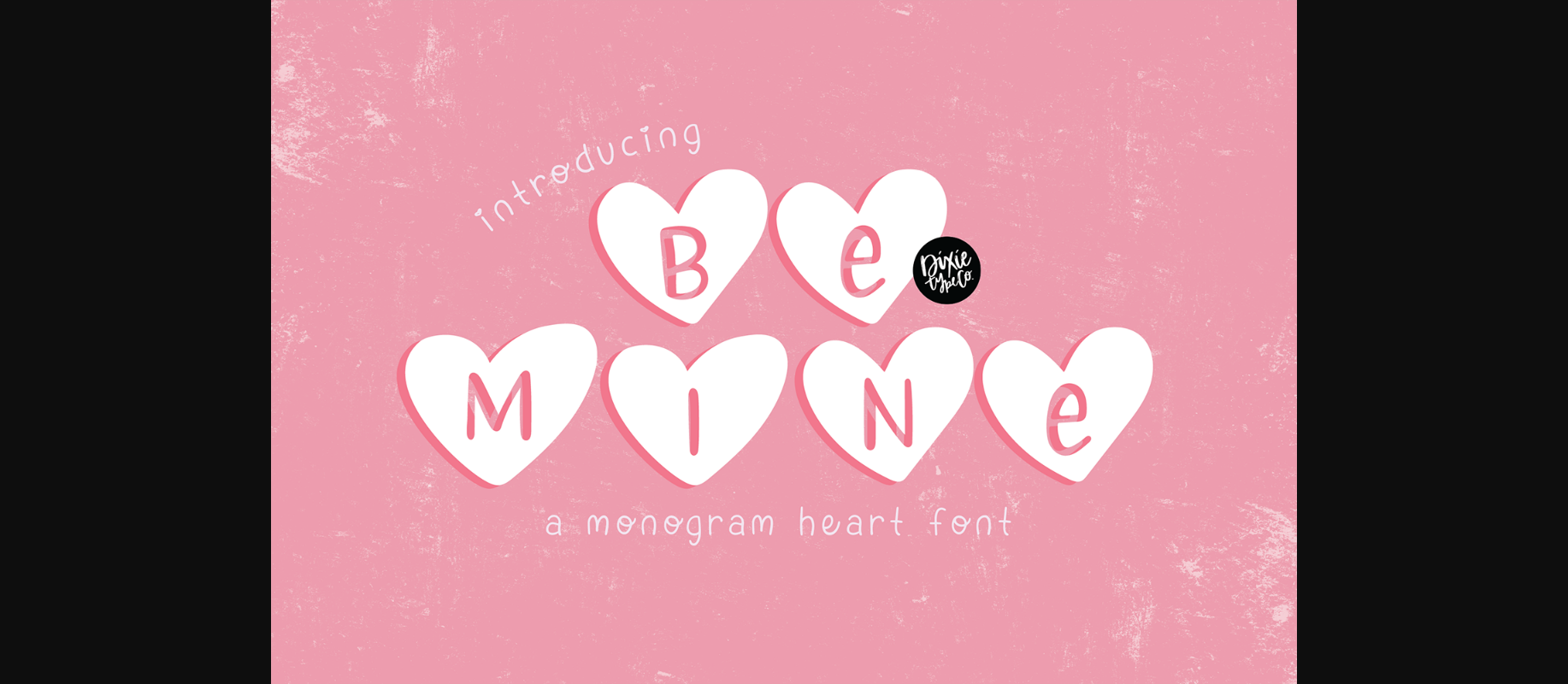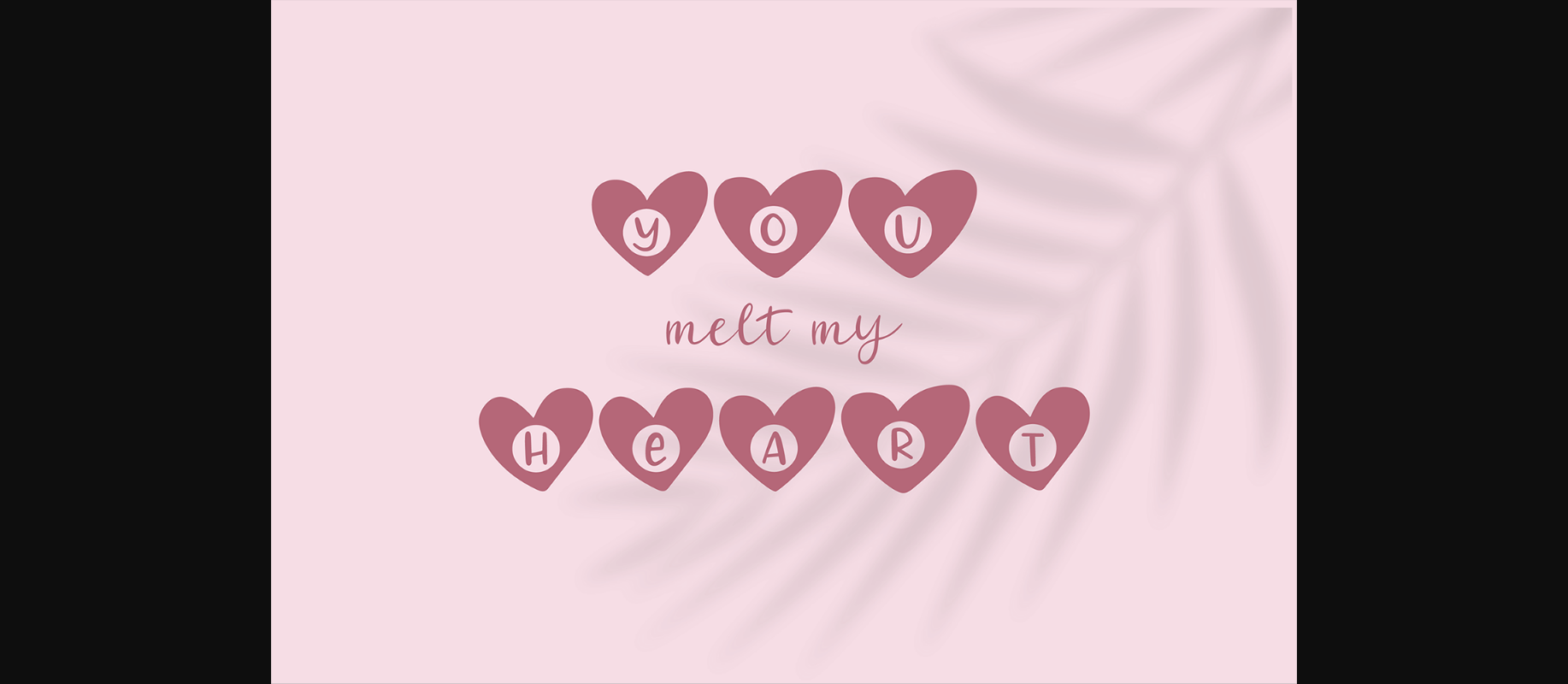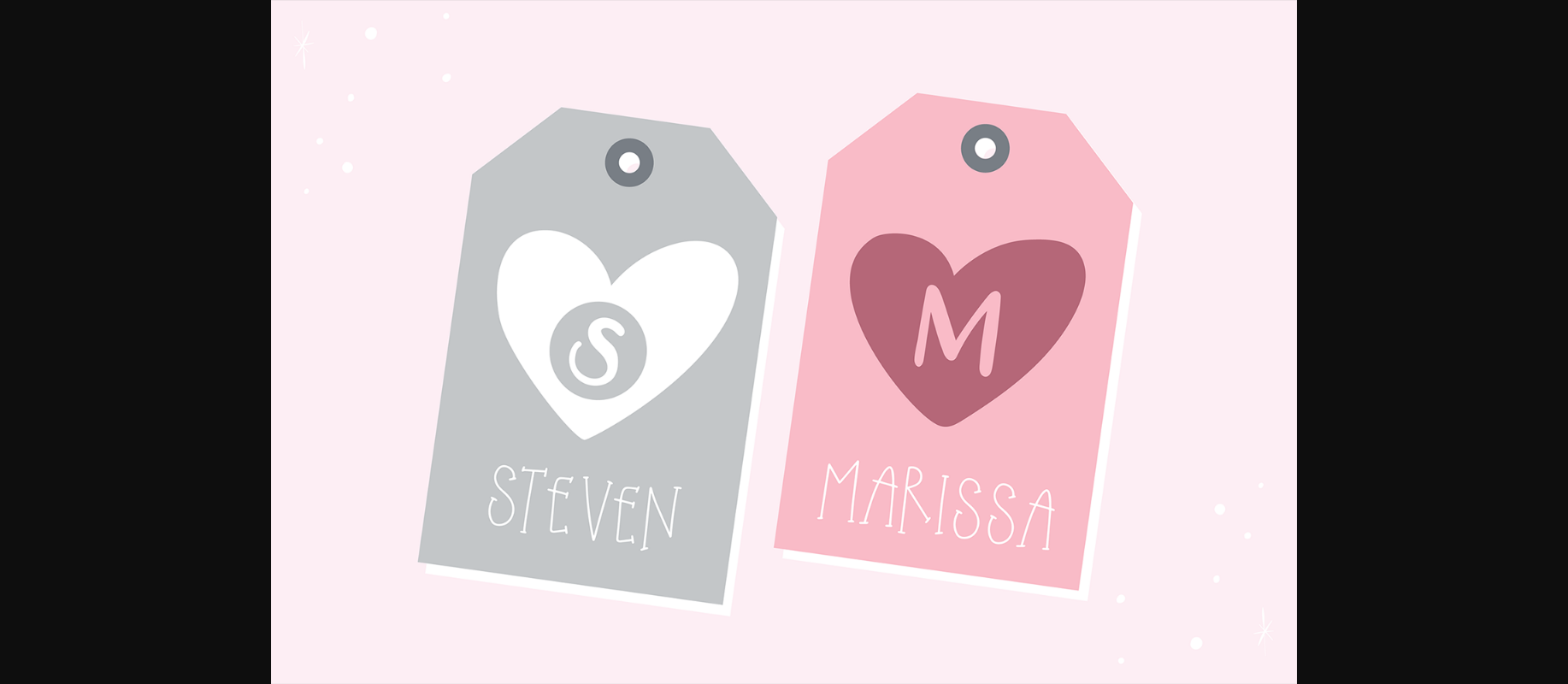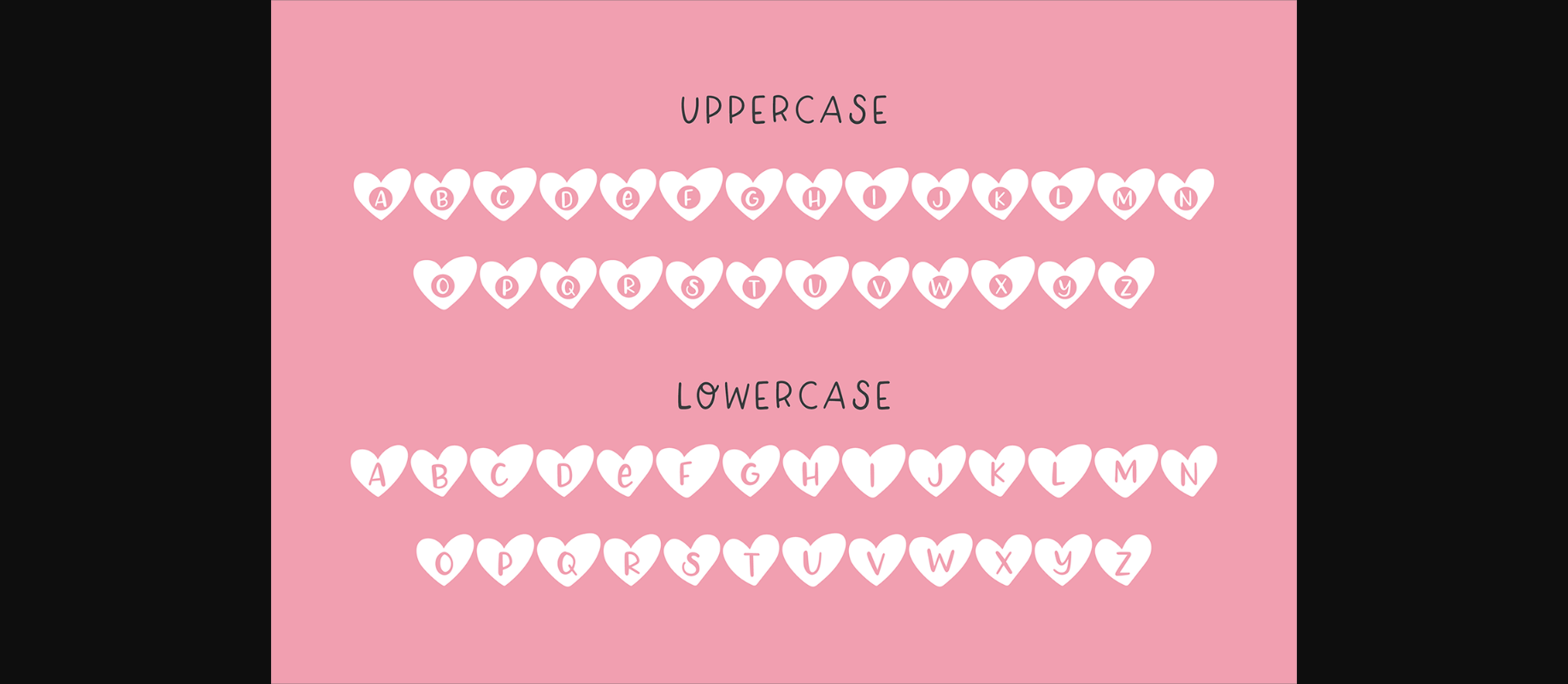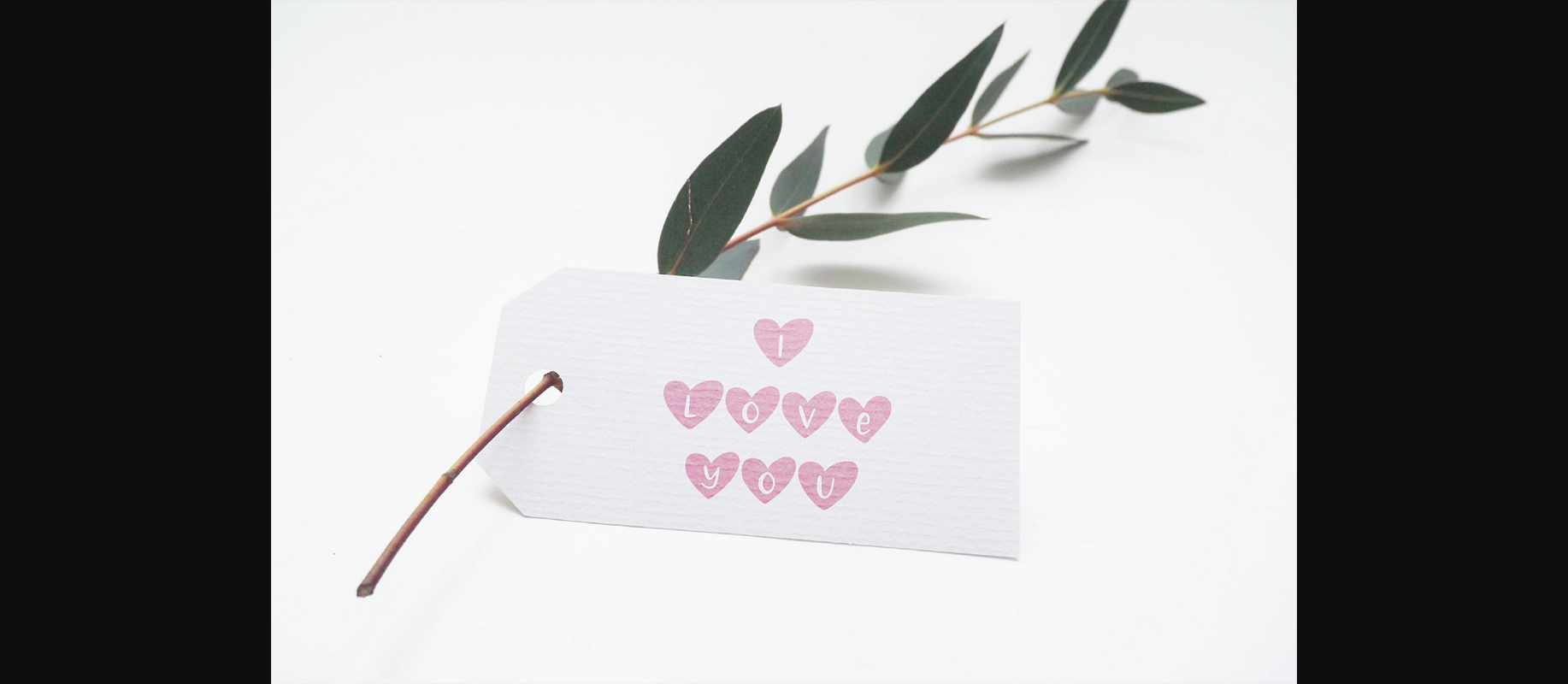
Be Mine Font
About Be Mine Font
Be Mine is a lovely decorative font. Fall in love with its authentic feel and use it to create gorgeous invitations, beautiful stationary art, eye-catching social media posts, and cute greeting cards.